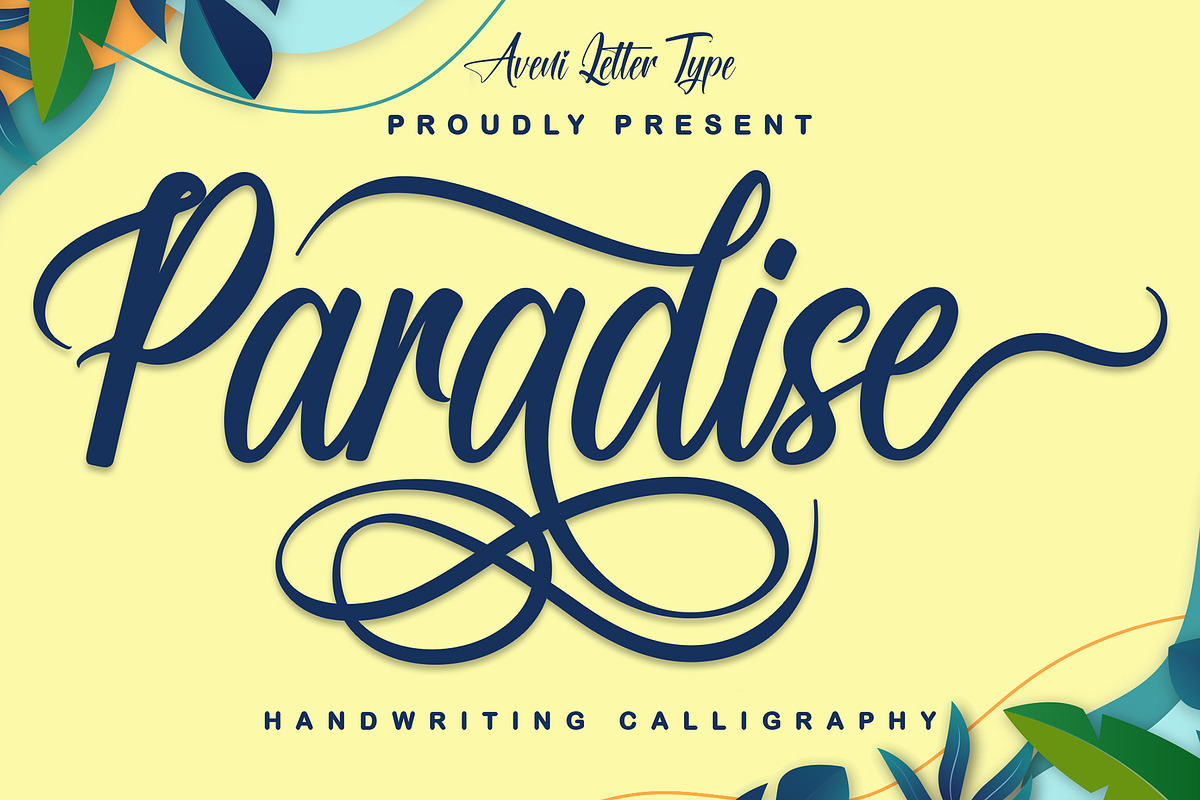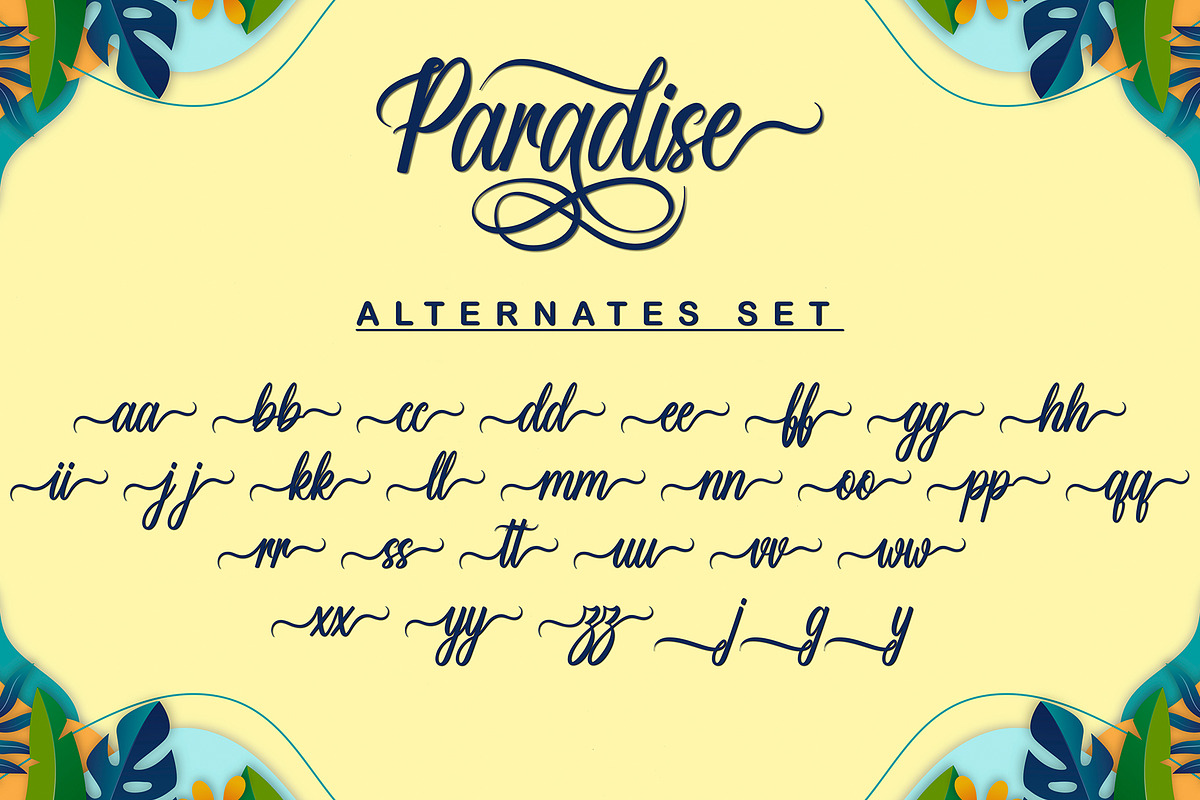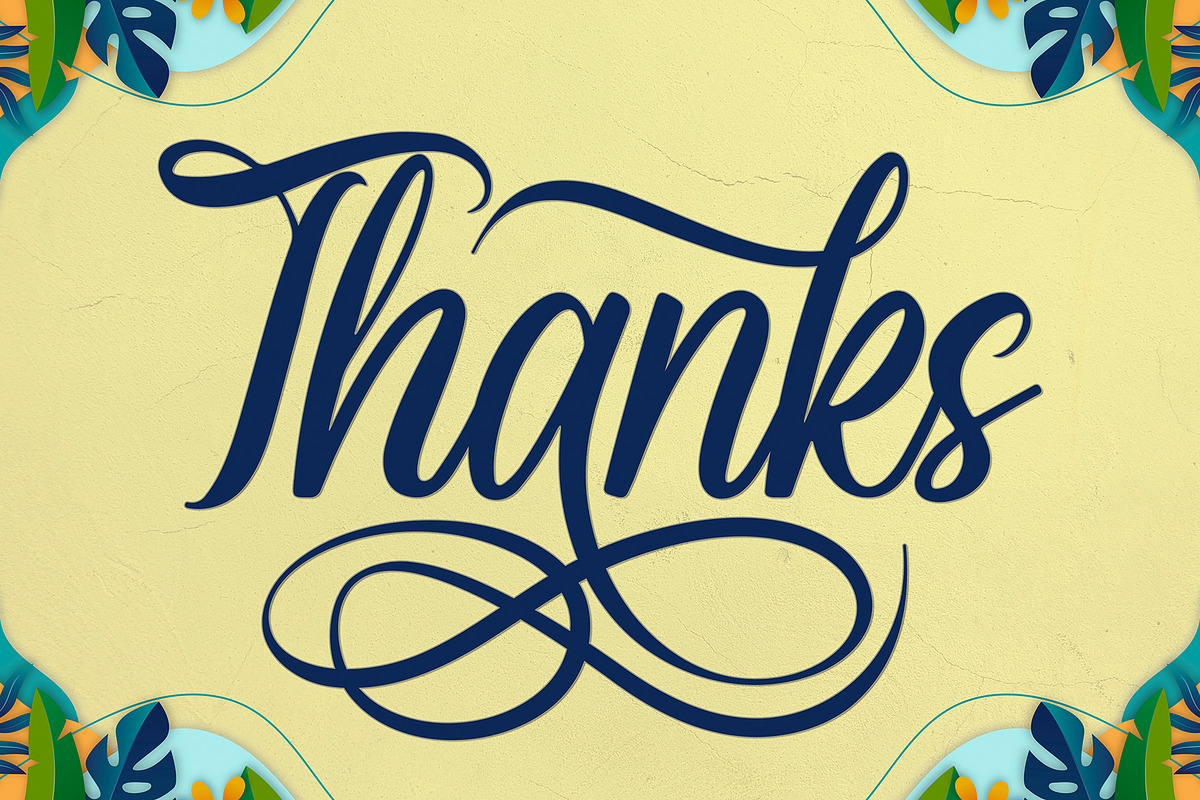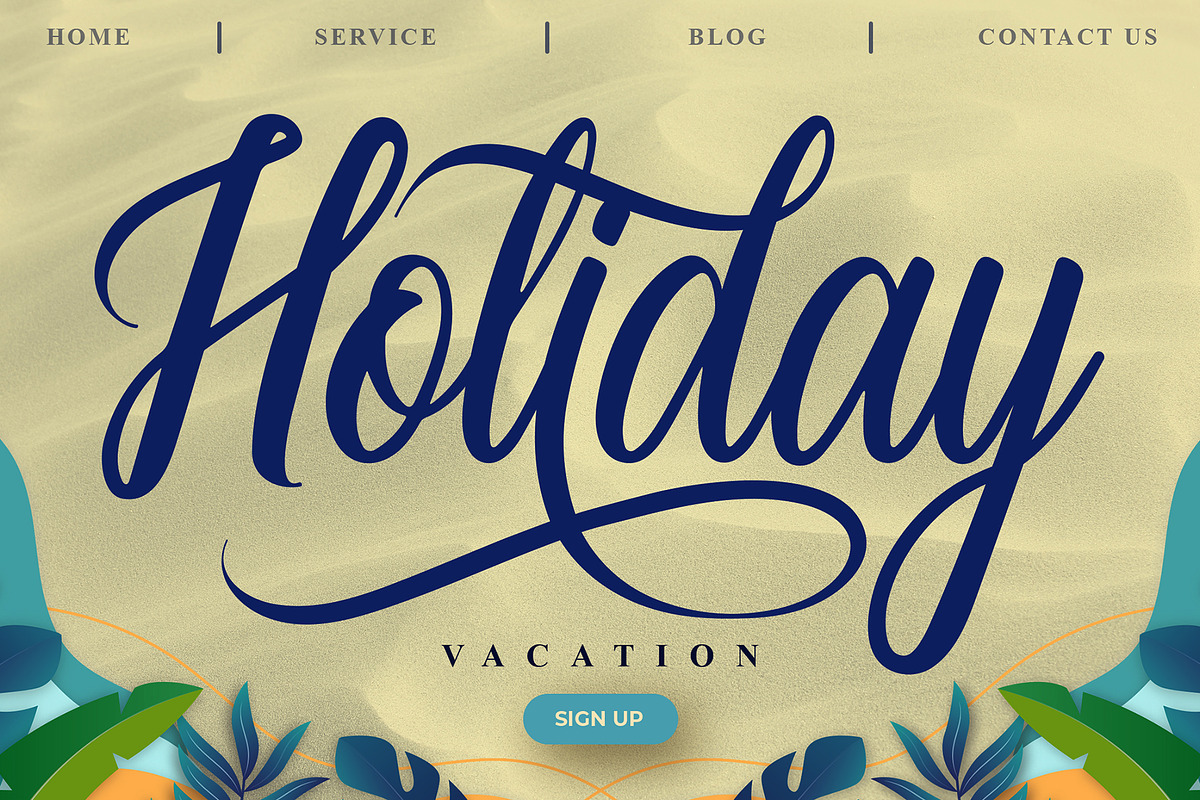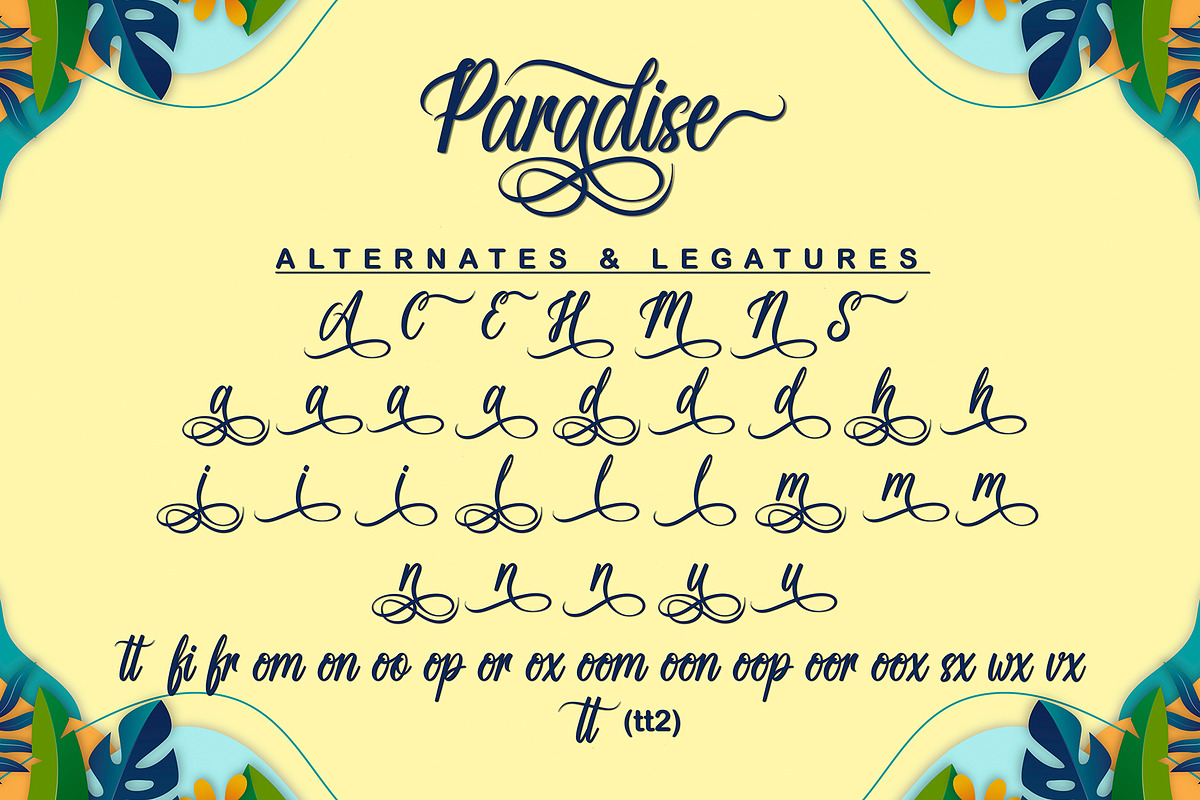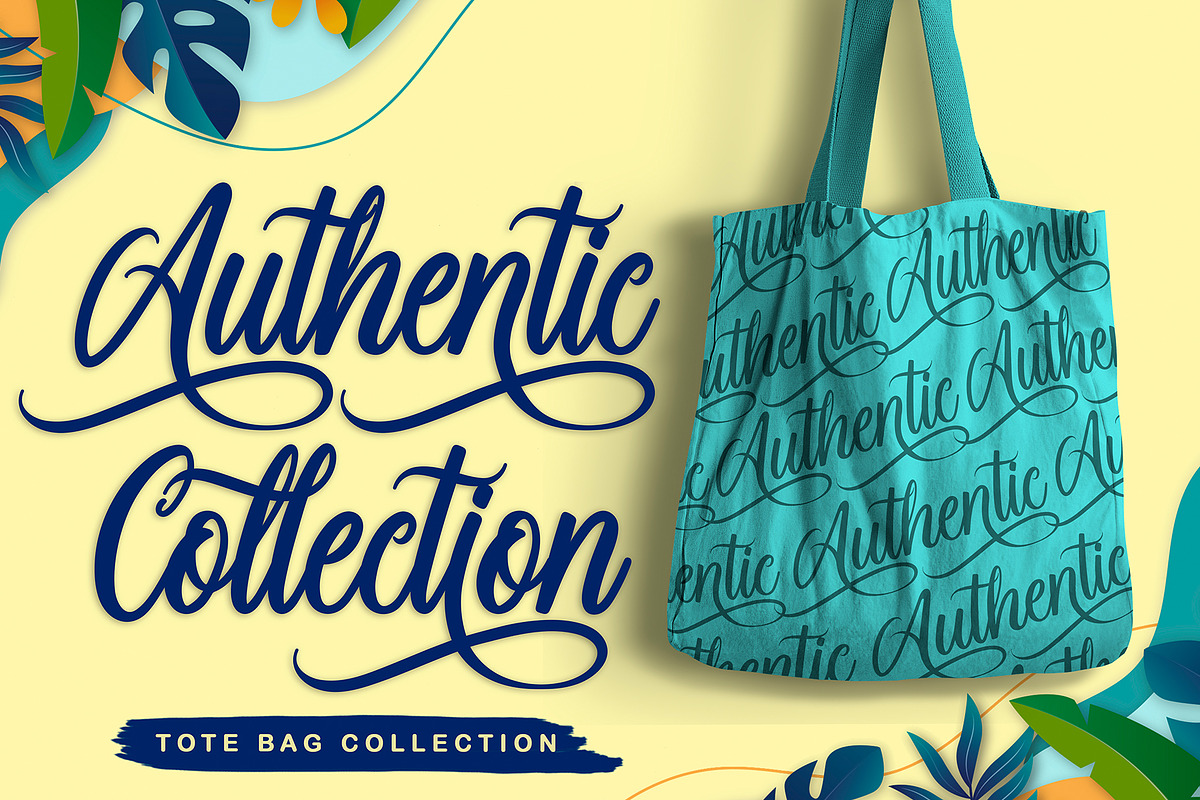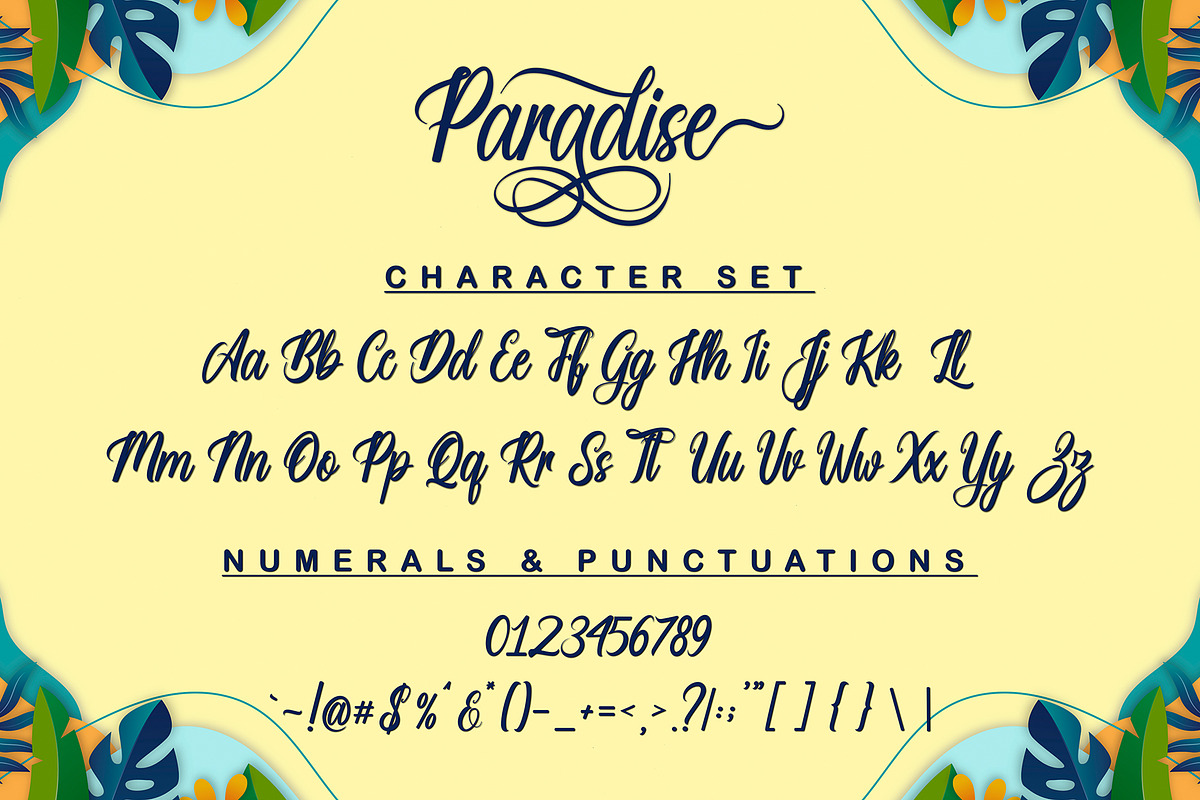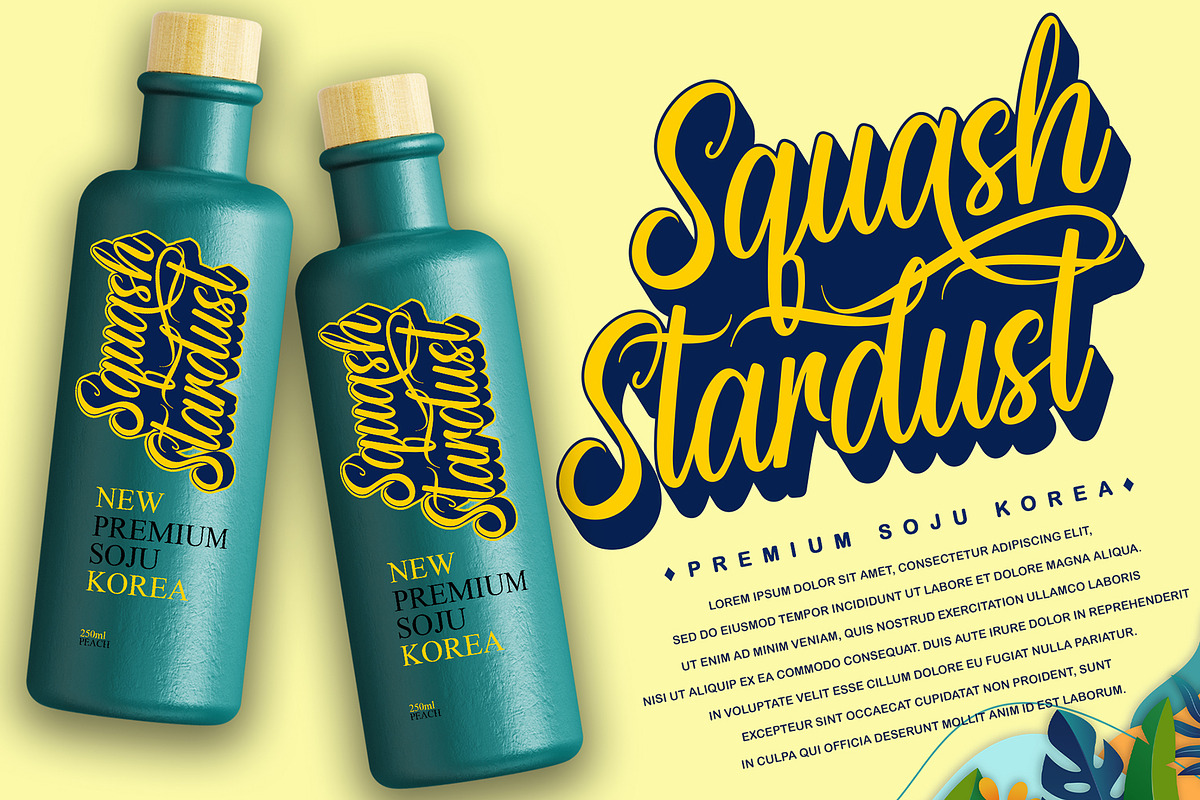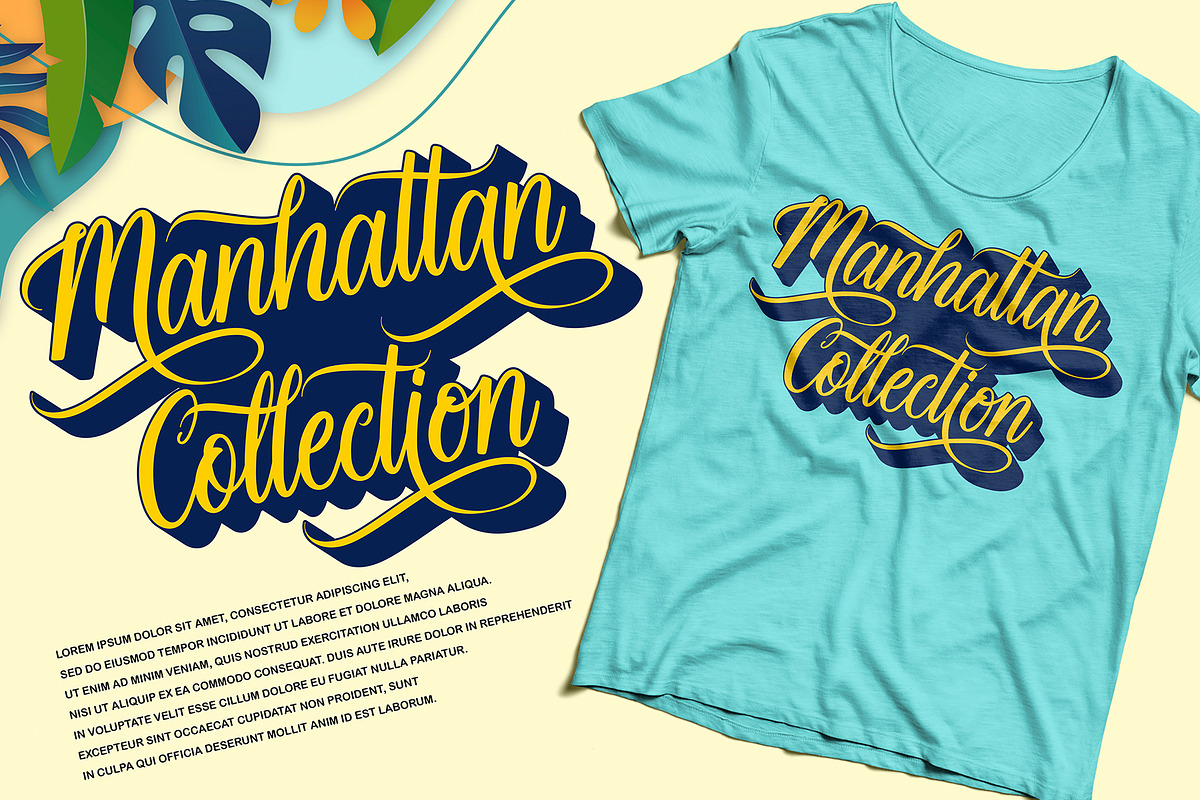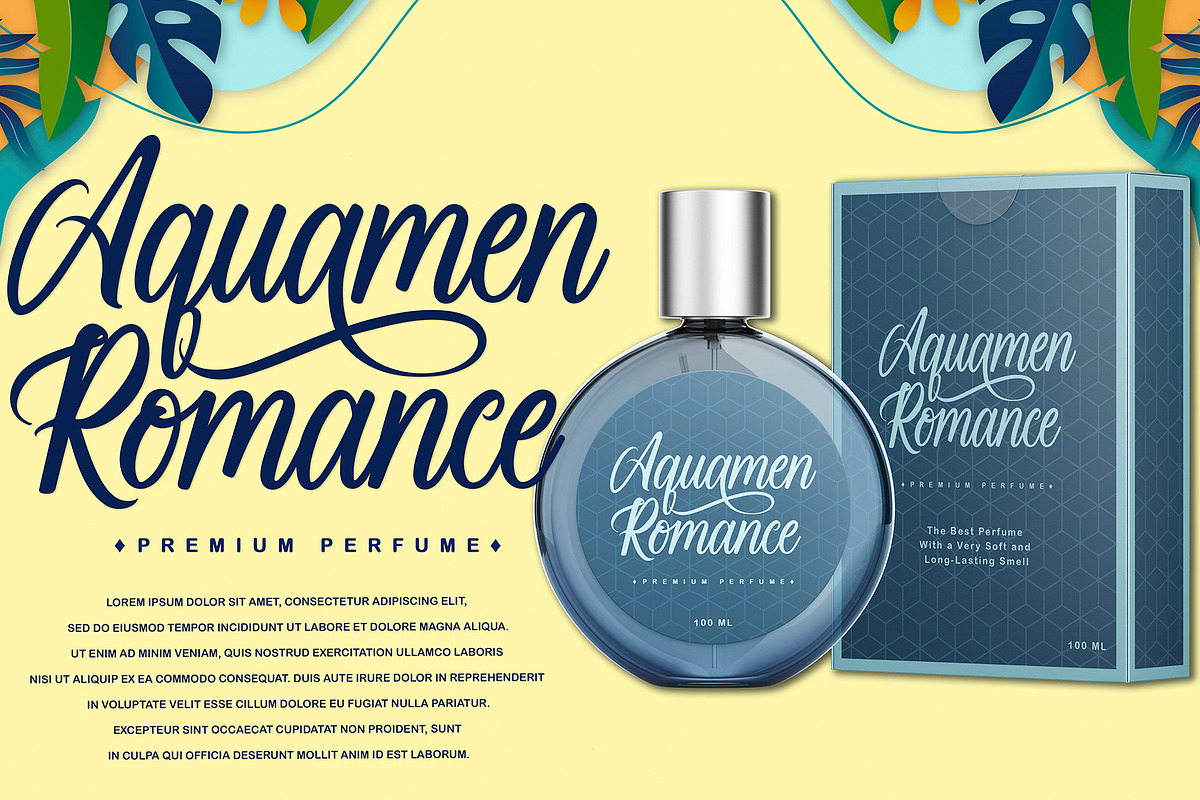
Paradise | Handwriting Calligraphy
Hello guys, I am a Paradise font that was born with exquisite calligraphy-style handwriting. This Paradise font has been kerned very neatly and has many alternate characters which are very easy to use for both PC and MAC. And of course, this Paradise font can be used for many projects such as you can use it for greeting cards, wedding invitation cards, product branding, logotypes, websites, business cards, letterheads, shop names, company names, wedding invitation cards, product packaging for your business, clothing branding, crafting, and many more.
Font Feature :
- Alternate & Ligatures